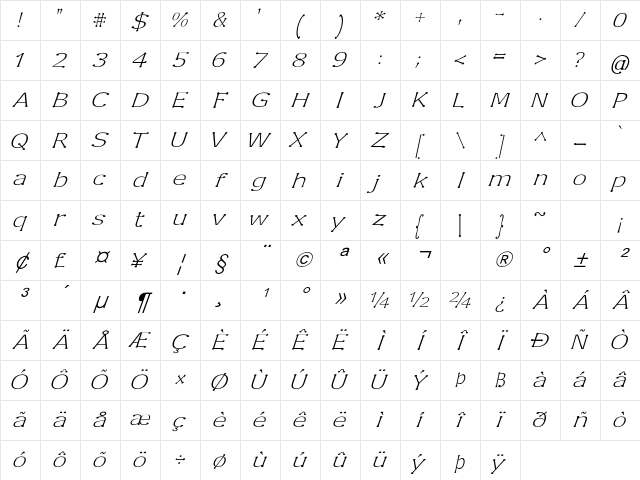
Complete Enspar Regular glyph index. Displaying only characters natively supported by Enspar Regular font.
Enspar is a composed and adaptable typeface that performs quietly and consistently across a wide range of design contexts.